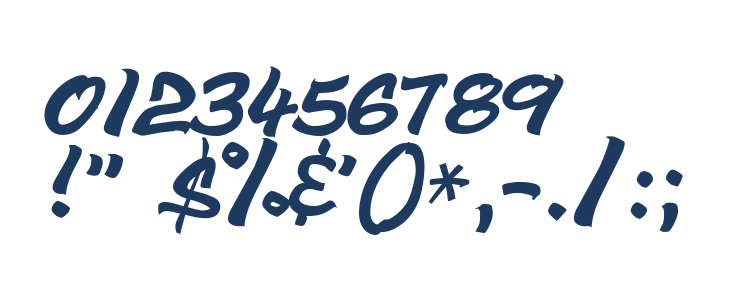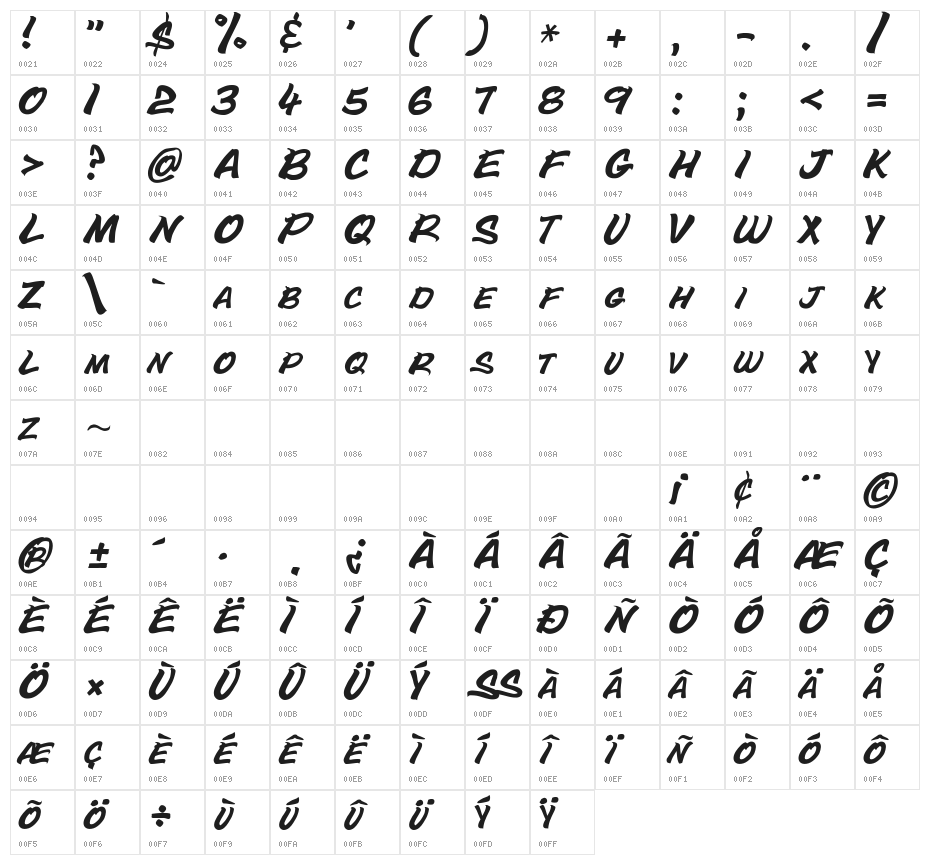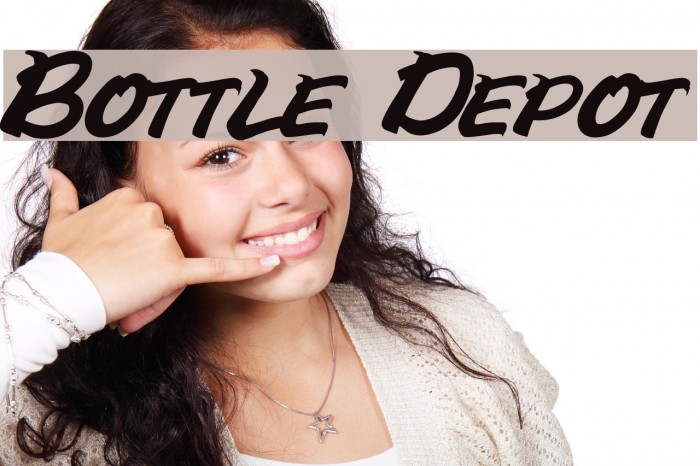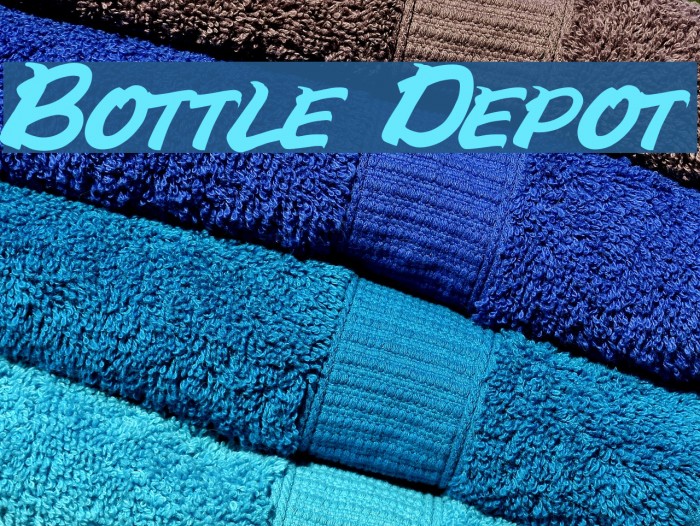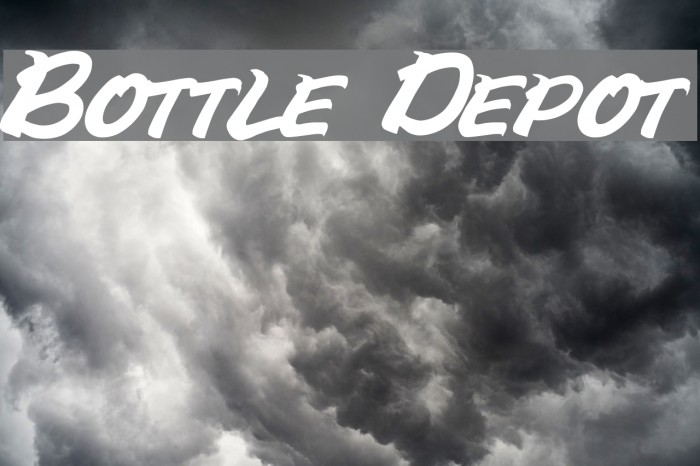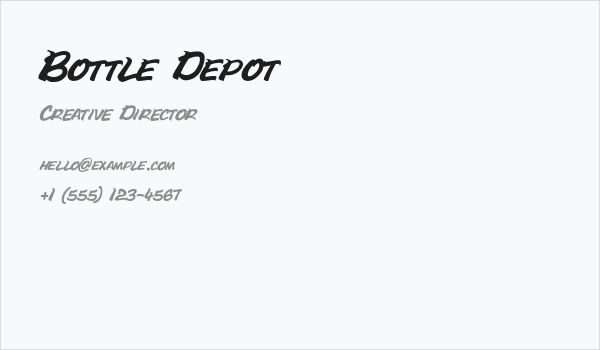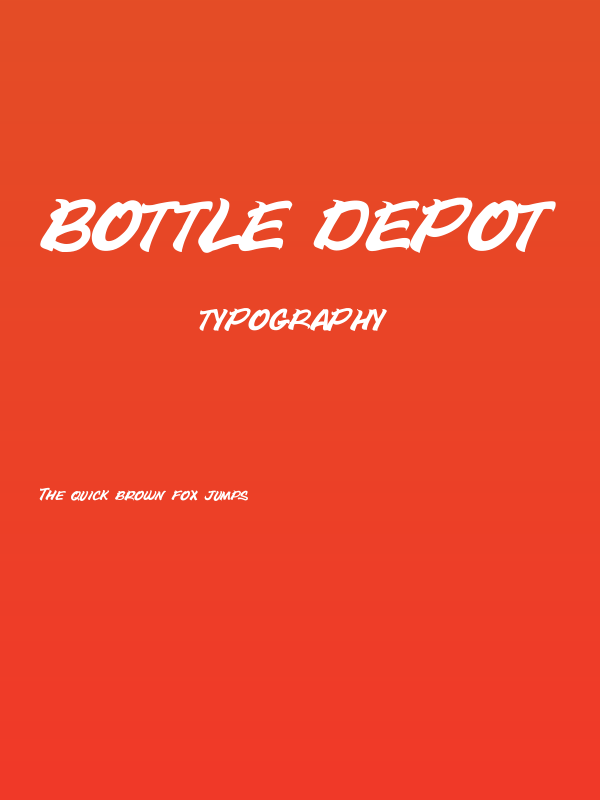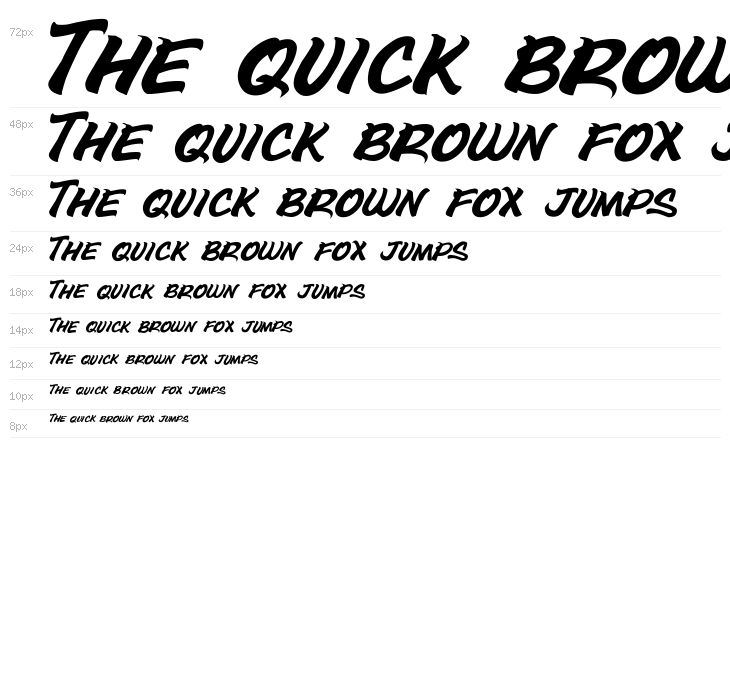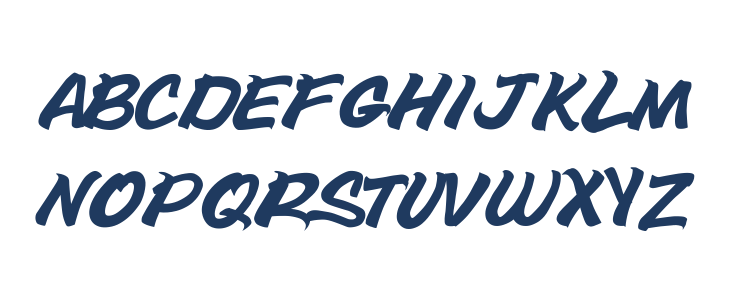
Bottle Depot Font
Bottle Depot Description
This font exhibits a bold and dynamic script style, characterized by its thick, flowing strokes and a sense of movement. The uppercase and lowercase letters maintain a consistent slant, giving the text a cohesive and energetic appearance. The numerals and special characters follow the same stylistic approach, ensuring uniformity across all glyphs. The font's design is reminiscent of hand-painted signage, with a modern twist that makes it suitable for contemporary applications. Its boldness and fluidity make it stand out, while the consistent stroke weight adds to its readability.
| Proposed Projects | Ideal for branding, packaging, posters, and any project requiring a bold, expressive touch. |